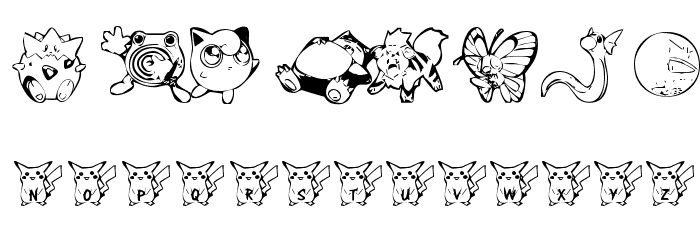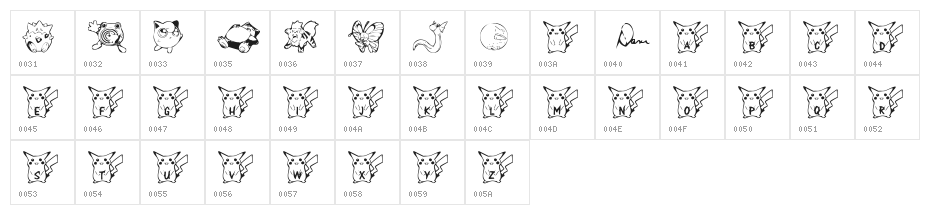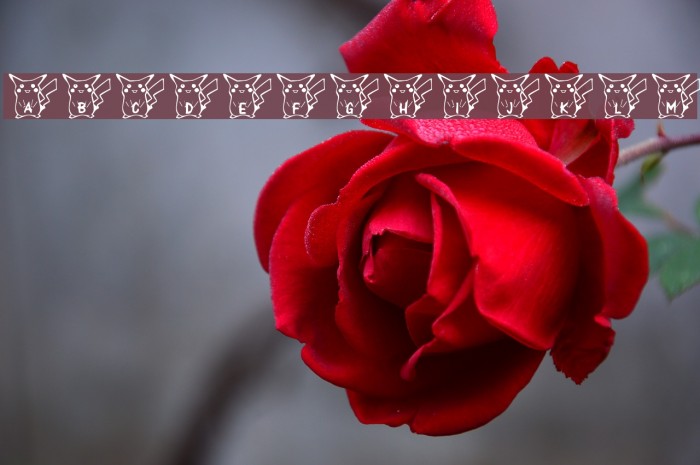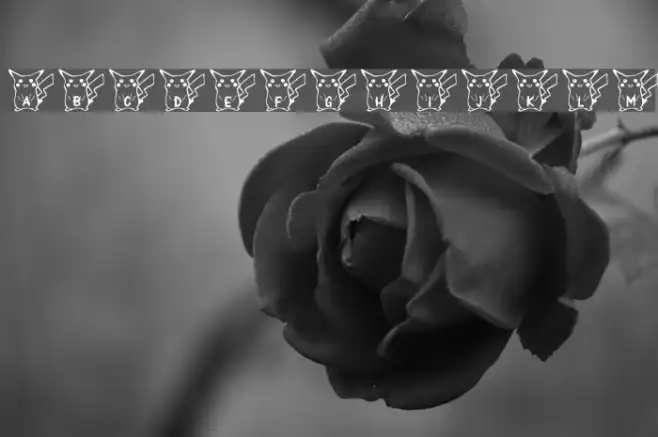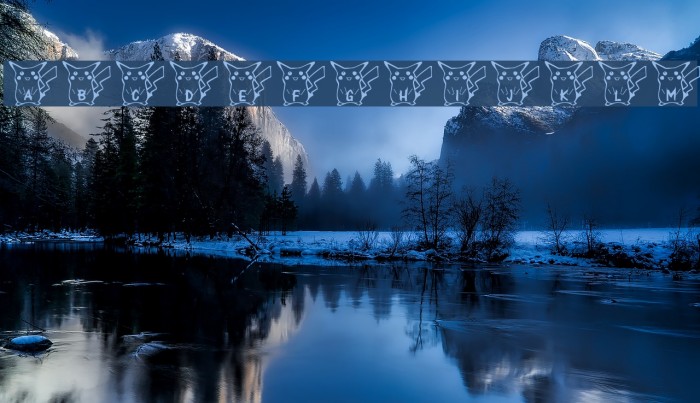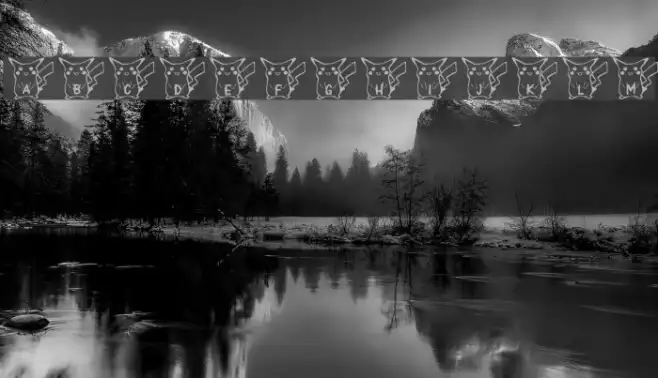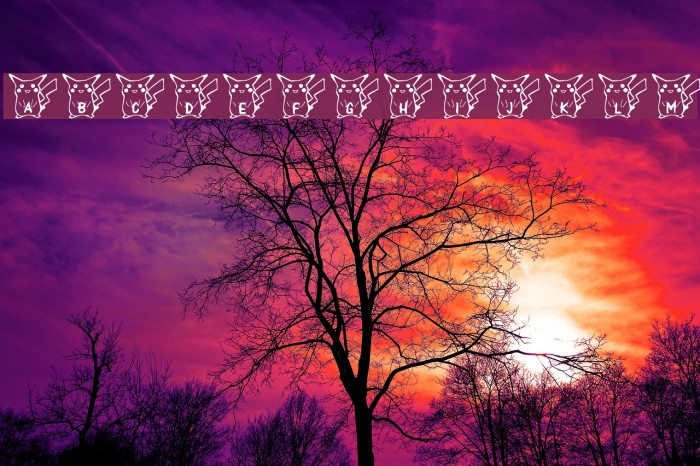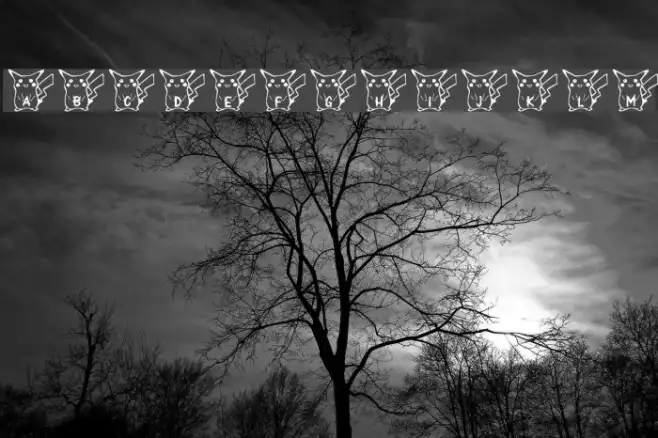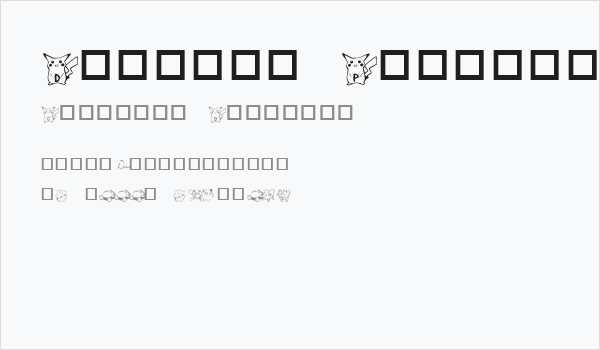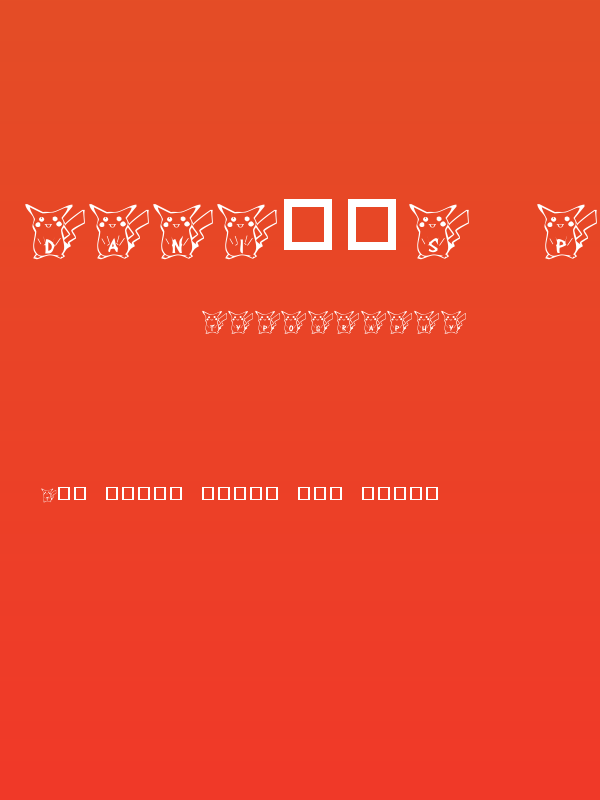
Dani's Pikachu Font
Dani's Pikachu Description
This playful and whimsical font features each letter encased within a Pikachu silhouette, creating a unique and charming design. The characters are bold and cartoonish, with each letter distinctly visible inside the Pikachu shape. The font is highly decorative, making it ideal for projects that require a fun and engaging visual element. The design is consistent across both uppercase and lowercase letters, maintaining a cohesive look. The special characters are represented by various PokΓΒ©mon, adding an extra layer of creativity and appeal.
| Use Case | Headlines, Logos, Themed Designs |
| Proposed Projects | Ideal for children's books, themed party invitations, playful branding, and merchandise related to PokΓΒ©mon. |